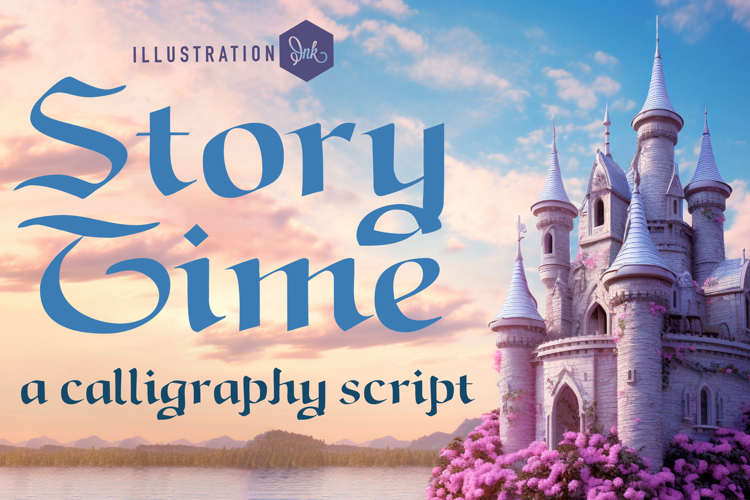
Story Time Font Family
This hand-crafted, calligraphy font has a very formal feel.
• The letters are not perfectly uniform in size or shape.
• There may be slight variations in the spacing between letters and words.
• The font may have a "wiggly" or "squiggly" appearance.
• The font may be difficult to read at small sizes.